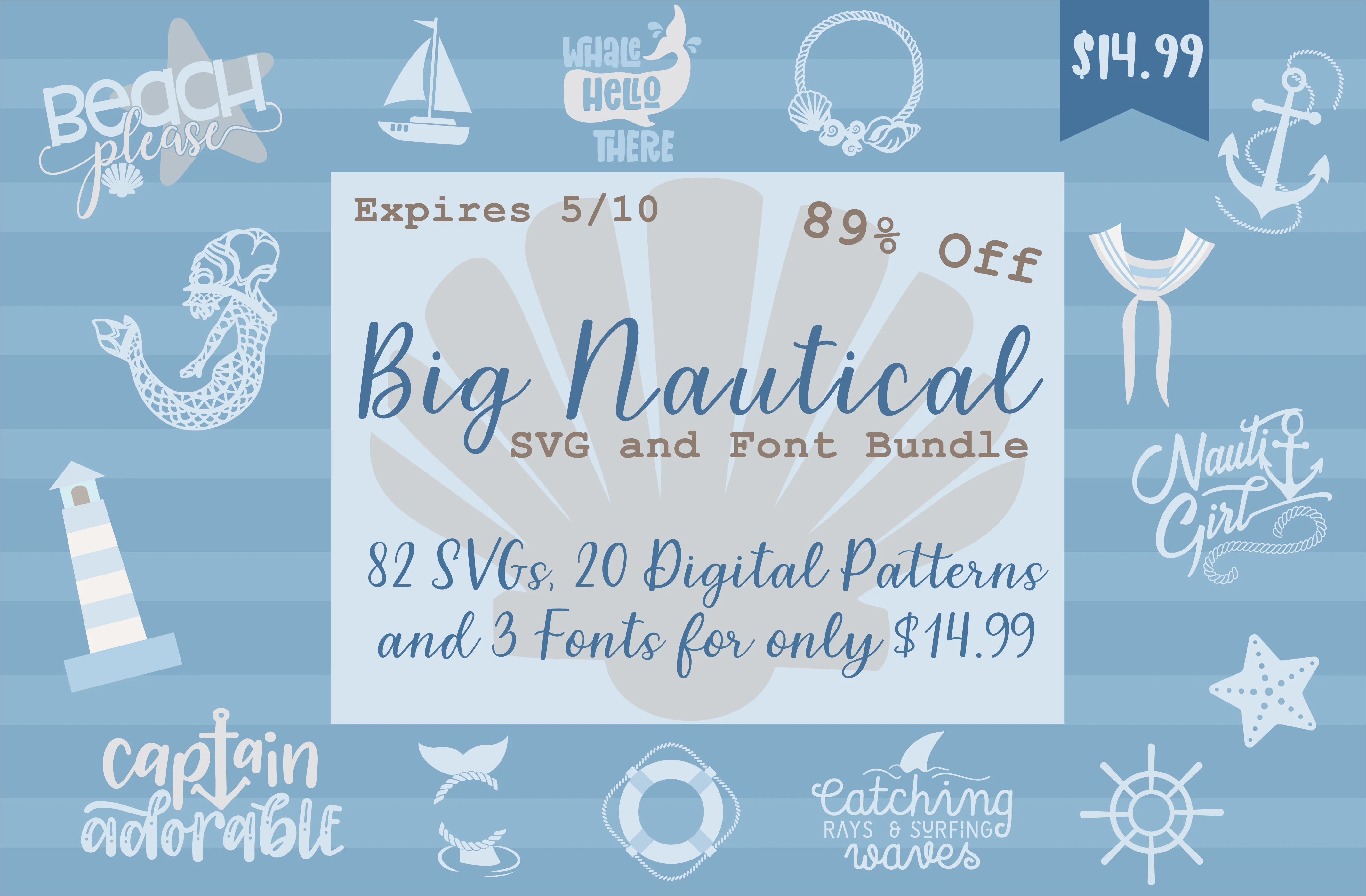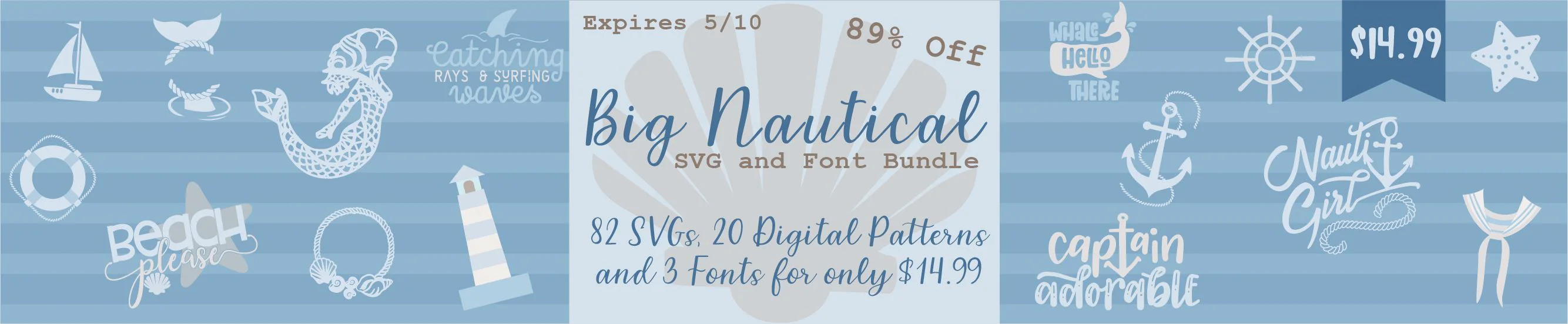
Big Nautical SVG & Font Bundle
Life is better at the beach...or on the open ocean! This adorable nautical bundle makes you feel like you have your toes in the sand and sea breeze on your face. With 3 fonts, 82 SVGs and 20 digital patterns, you can craft the perfect beach house vibe! Don't forget, purchase includes the So Fontsy General Commercial Use License!